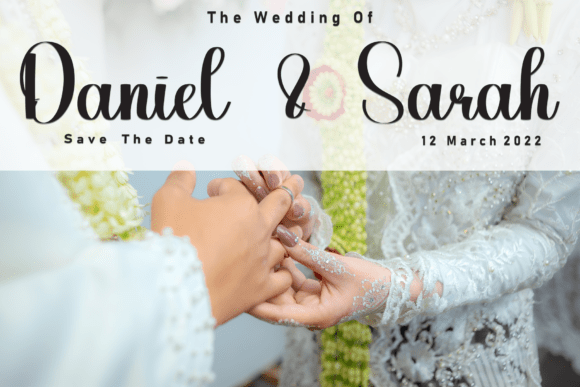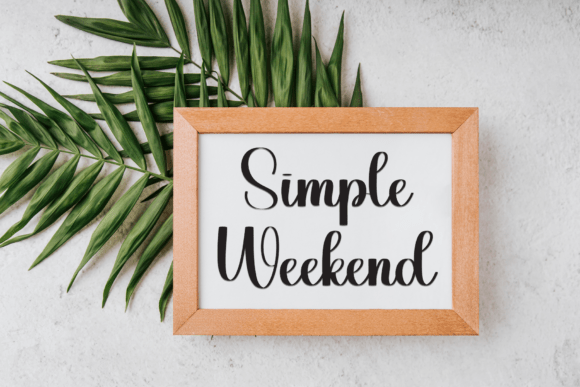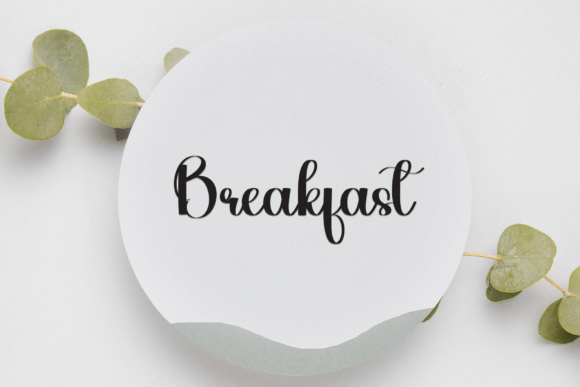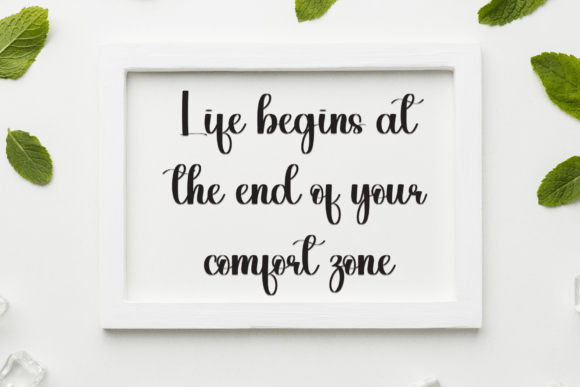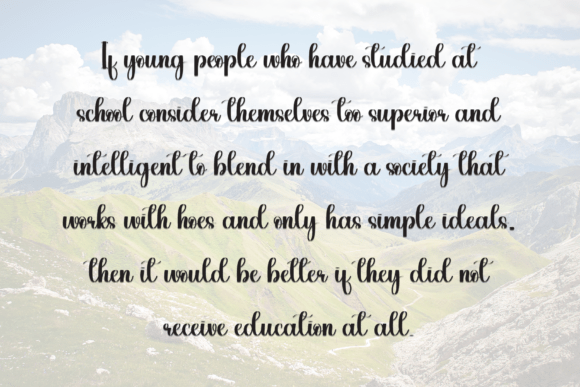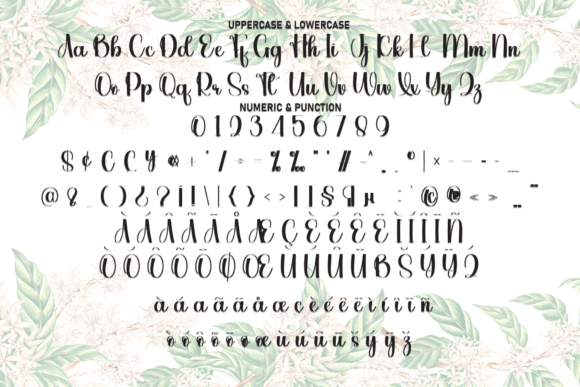
Discover the Enchanting Angelina Font: A Whimsical Typographic Wonder
Are you searching for a font that can add a touch of magic to your designs? Look no further than the captivating Angelina Font, a true gem in the world of typography. However, in this article, we will be discussing a similar font, Penelope Display, a thoughtfully handcrafted font that exudes warmth and friendly ambiance, perfect for designers and crafters seeking to infuse their projects with a dash of whimsy and charm.
Unleash Your Creativity with Penelope Display
Penelope Display is a stunning example of creative typography, boasting a compelling blend of tender, affectionate strokes and lively whimsy. This delightful font beautifully transforms ordinary text into a canvas of creative expression, brimming with a distinct personality that is sure to captivate your audience. Whether you’re designing sophisticated wedding invitations or heartfelt personal messages, Penelope Display is the perfect choice for adding a touch of elegance and charm.
The Characteristics of Penelope Display
So, what sets Penelope Display apart from other fonts? Here are just a few of its key characteristics:
- Handcrafted with love: Each letter has been carefully crafted to exude warmth and friendly ambiance, making it perfect for designs that require a personal touch.
- Tender and affectionate strokes: The font features gentle, flowing strokes that add a touch of whimsy and charm to any design.
- Lively and playful: Penelope Display has a lively, energetic feel that’s perfect for designs that require a dash of personality.
- Perfect for creative projects: Whether you’re designing wedding invitations, personal messages, or craft projects, Penelope Display is the perfect choice for adding a touch of magic to your designs.
Using Penelope Display in Your Designs
Penelope Display is a versatile font that can be used in a variety of design projects, including:
- Wedding invitations: Add a touch of elegance and charm to your wedding invitations with Penelope Display.
- Personal messages: Use Penelope Display to create heartfelt personal messages that will touch the hearts of your loved ones.
- Craft projects: Penelope Display is perfect for craft projects, such as handmade cards, gift tags, and other paper crafts.
- Digital designs: Use Penelope Display in your digital designs, such as social media graphics, blog posts, and website headers.
Tips for Getting the Most Out of Penelope Display
Here are a few tips for getting the most out of Penelope Display:
- Experiment with different colors: Penelope Display looks great in a variety of colors, so don’t be afraid to experiment and find the perfect hue for your design.
- Play with font sizes: Penelope Display can be used at a variety of font sizes, from large headings to smaller body text.
- Combine with other fonts: Penelope Display pairs well with other fonts, so feel free to experiment with different font combinations to create a unique look.